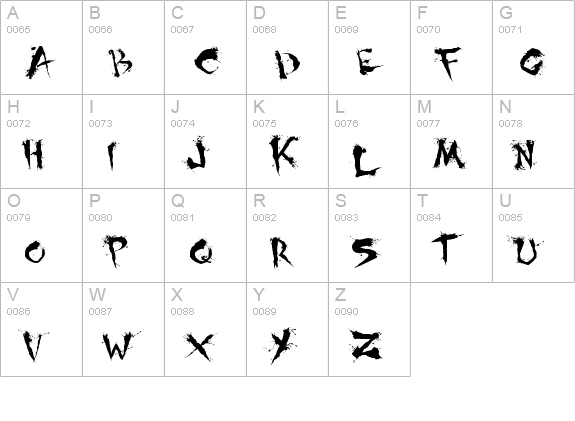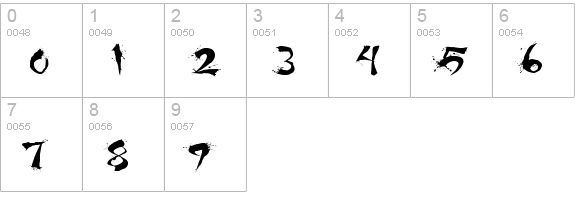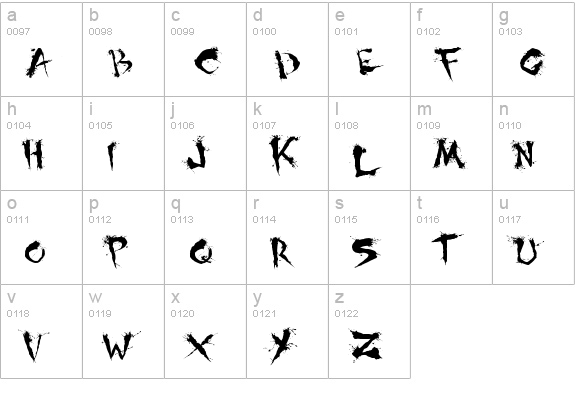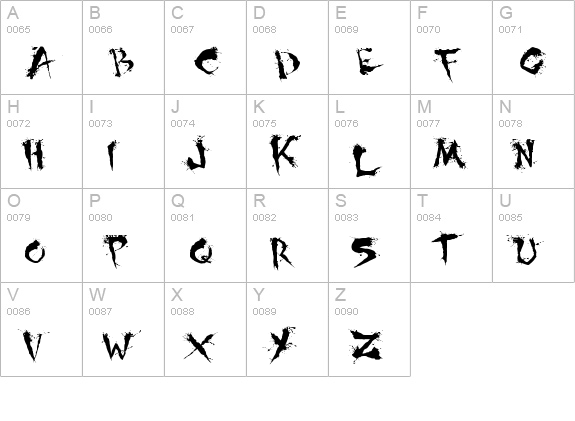
Shoguns Clan Font Details
Introducing Shoguns Clan font, an exquisite display typeface that embodies the essence of ancient Japanese warriors. This font exudes power, elegance, and a touch of mystique, making it perfect for any project that requires a bold statement. Shoguns Clan font showcases intricate, sharp edges that mimic the precision of a samurai's sword. Its sleek and stylish design is inspired by the meticulous craftsmanship of traditional Japanese calligraphy. Each character is carefully crafted to capture the essence of the Shogun era, transporting your designs to a realm of honor and bravery. Whether you're designing a logo for a martial arts academy, creating striking headlines for a movie poster, or even adding a touch of sophistication to your personal branding, Shoguns Clan font is the perfect choice. With its versatile nature, this font can effortlessly adapt to various design styles, blending harmoniously with both modern and traditional aesthetics. And the best part? Shoguns Clan font is available for free download exclusively at FontsMarket.com. We understand the importance of accessibility, and that's why we're thrilled to offer this remarkable font to all designers and enthusiasts alike. Now, you can effortlessly incorporate the essence of the Shogun era into your projects without any financial constraints. Unleash the power of Shoguns Clan font and elevate your designs to new heights. Download it for free today at FontsMarket.com and embark on a creative journey that pays homage to the legacy of ancient Japanese warriors.